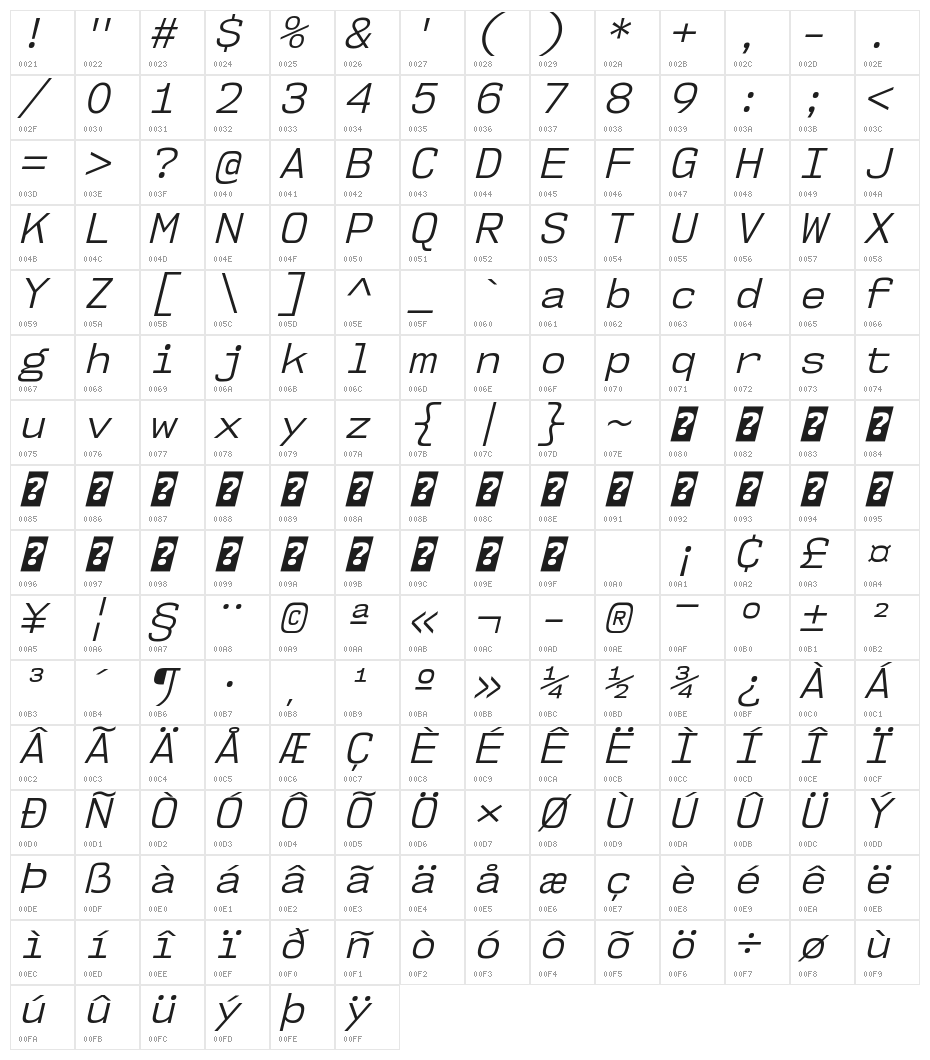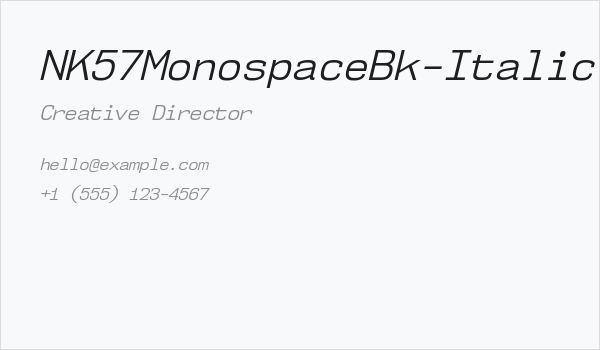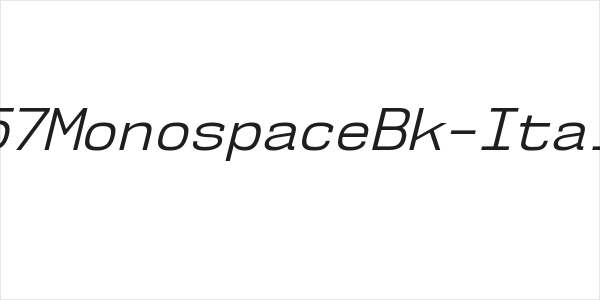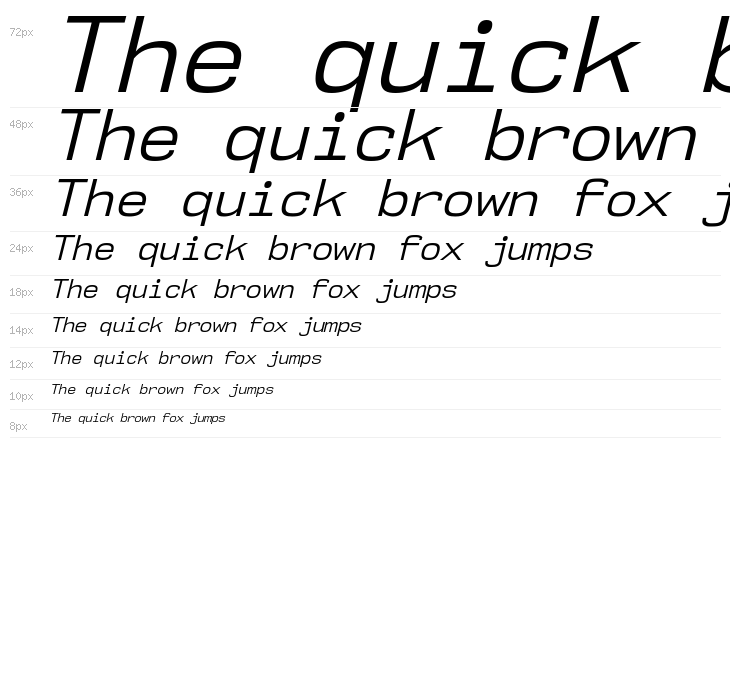
NK57MonospaceBk-Italic Font
NK57MonospaceBk-Italic Description
This font presents a clean, modern aesthetic with a monospaced design, ensuring each character occupies the same amount of horizontal space. The italic style adds a dynamic and forward-leaning appearance, enhancing readability while maintaining a structured look. The characters are evenly spaced, providing a balanced and uniform text flow. The stroke contrast is low, with consistent thickness throughout, contributing to its legibility and clarity. Suitable for coding environments, technical documents, and any context where alignment and precision are crucial.
| Use Case | Coding, Technical documents, Design projects |
| Proposed Projects | Ideal for coding, technical documentation, and design projects requiring precise alignment. |